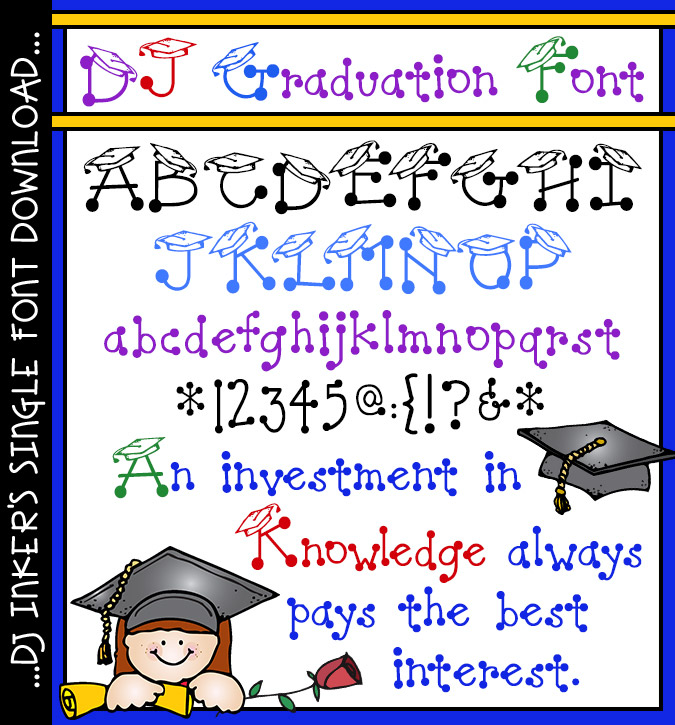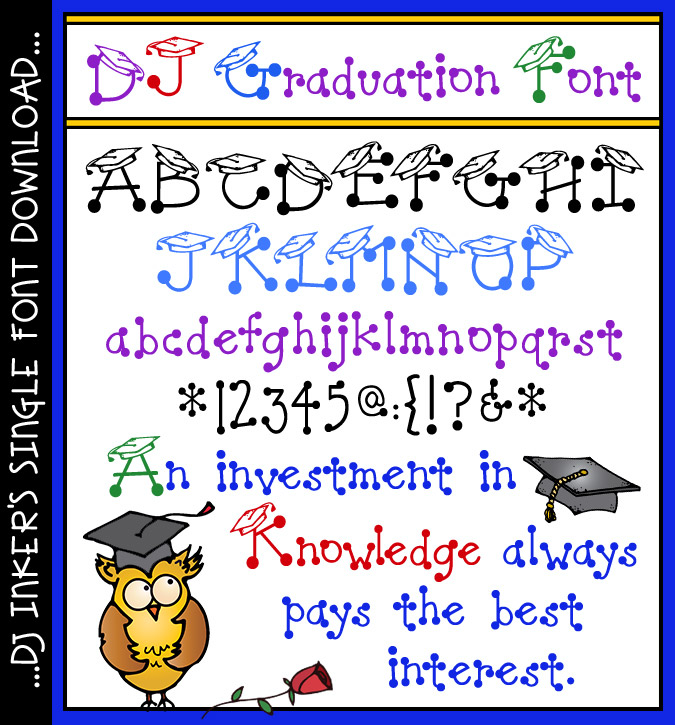
DJ Graduation Font Download
This whimsical grad hat dot lettering is sure to make any grad glad! :) DJ Inkers' playful
Graduation
font
will be great for creating graduation announcements, invitations, programs,
decorations and more! Perfect for preschool, Kindergarten
and elementary school graduations.